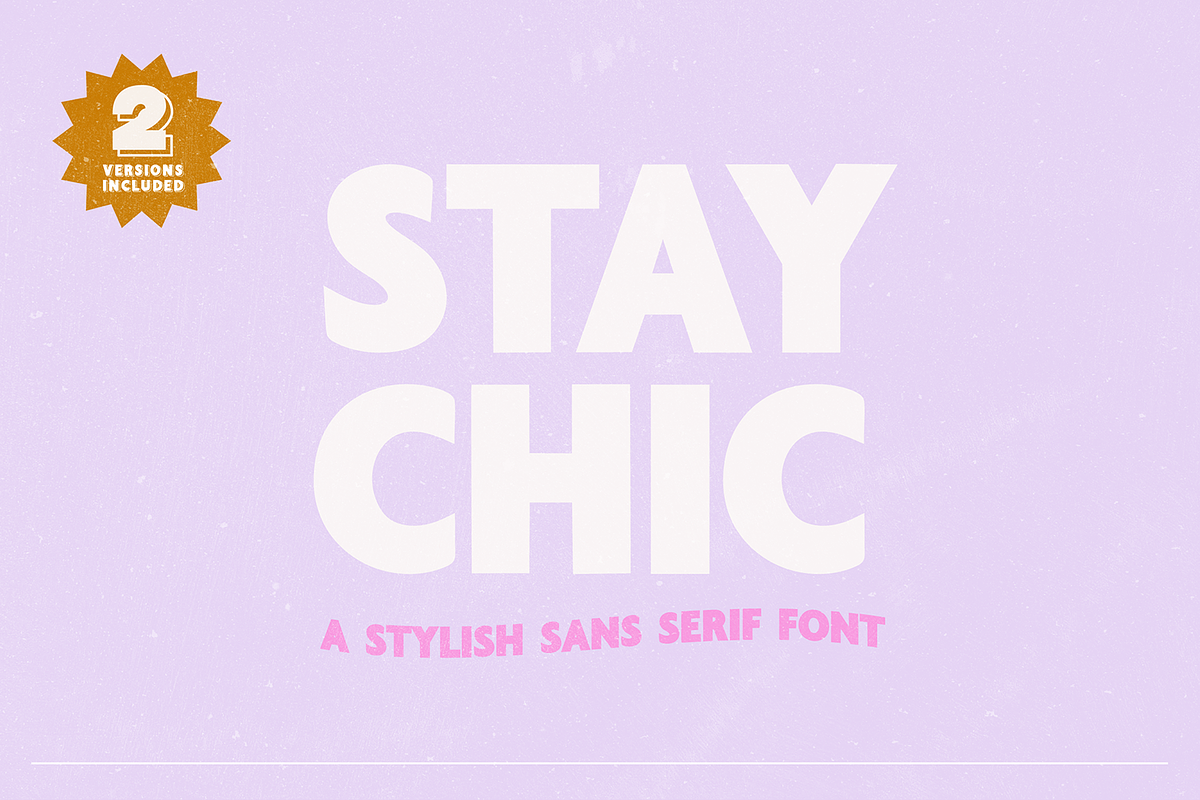
STAY CHIC Display Sans Serif Font Free Download
STAY CHIC Display Sans Serif Font Free Download is a modern and stylish typeface perfect for branding, logos, social media graphics, and high-end fashion designs. With its sleek lines and elegant presence, STAY CHIC adds a touch of sophistication to any project. This font stands out in both digital and print media, making it an ideal choice for designers looking to create a bold, confident look.
Whether you're working on a luxury fashion campaign or crafting a stylish blog header, the STAY CHIC Display Sans Serif Font offers versatility and elegance in every letter. Its clean design ensures readability while maintaining a unique aesthetic appeal.